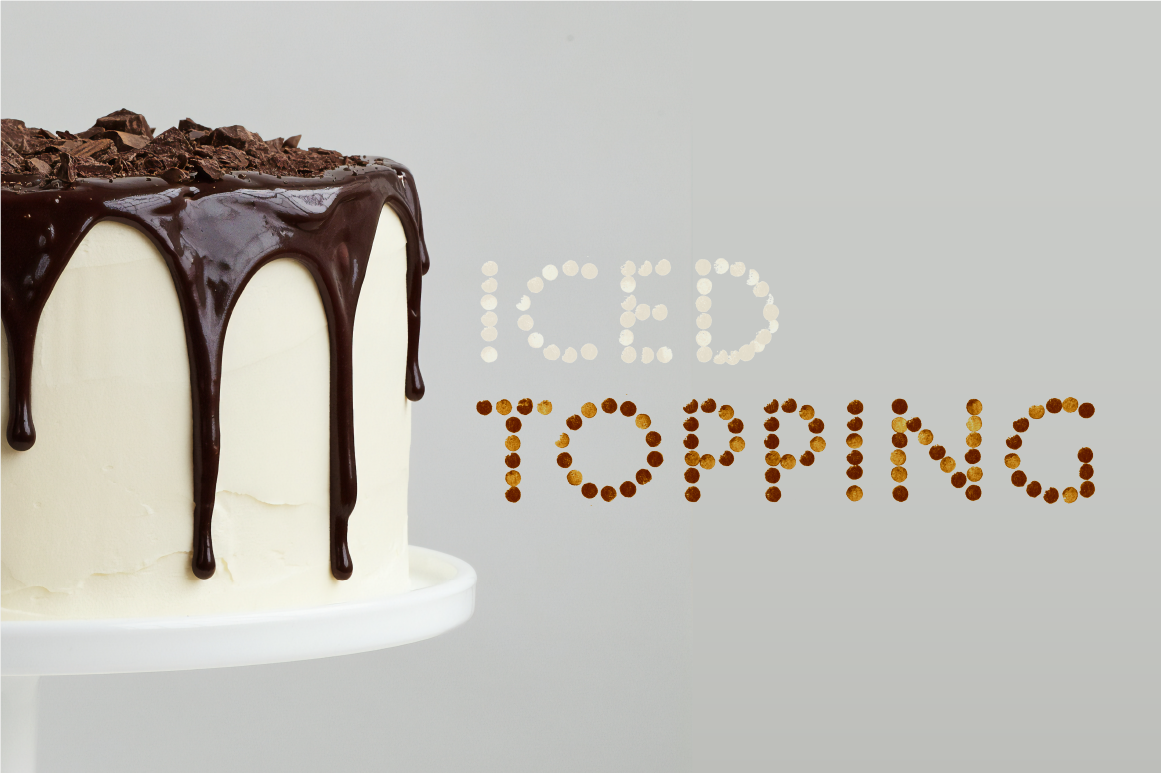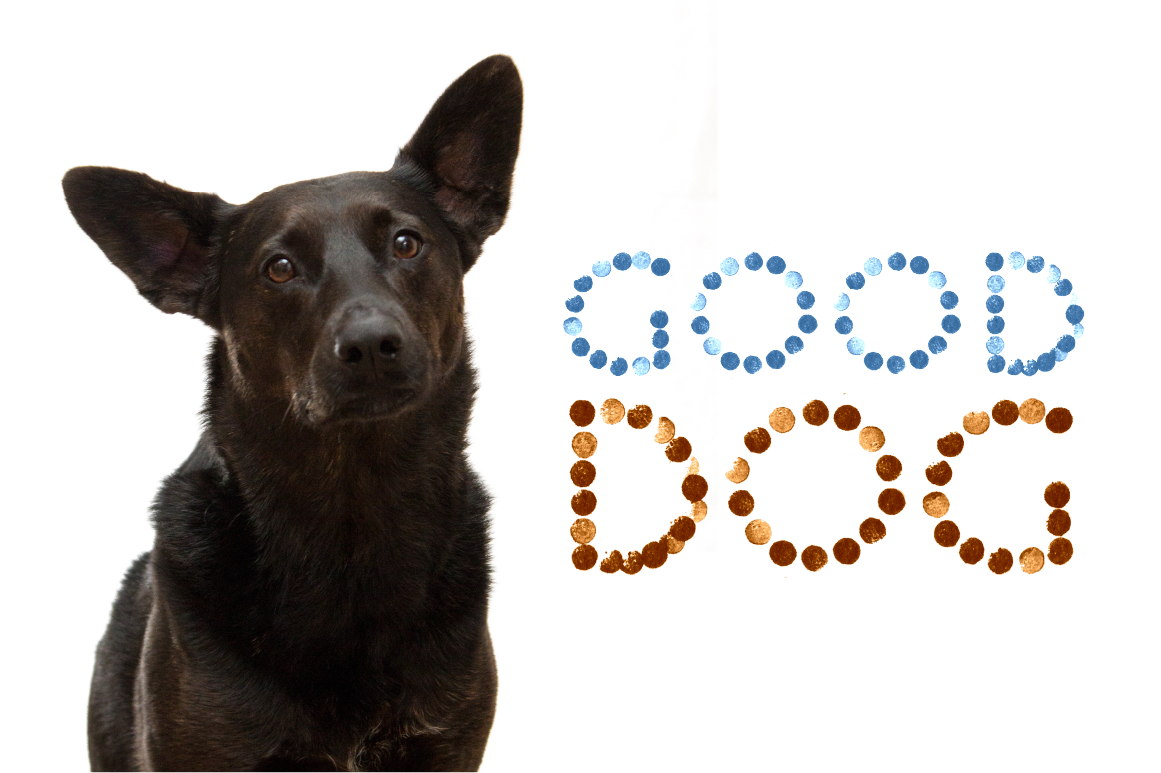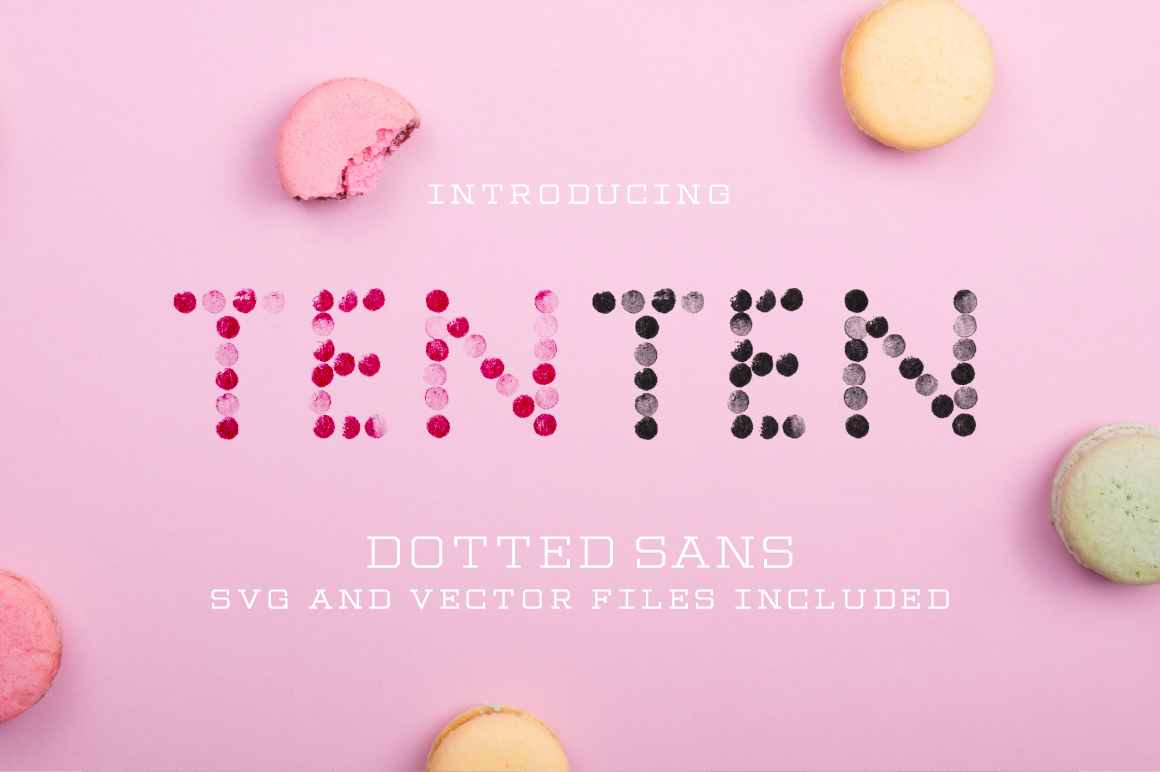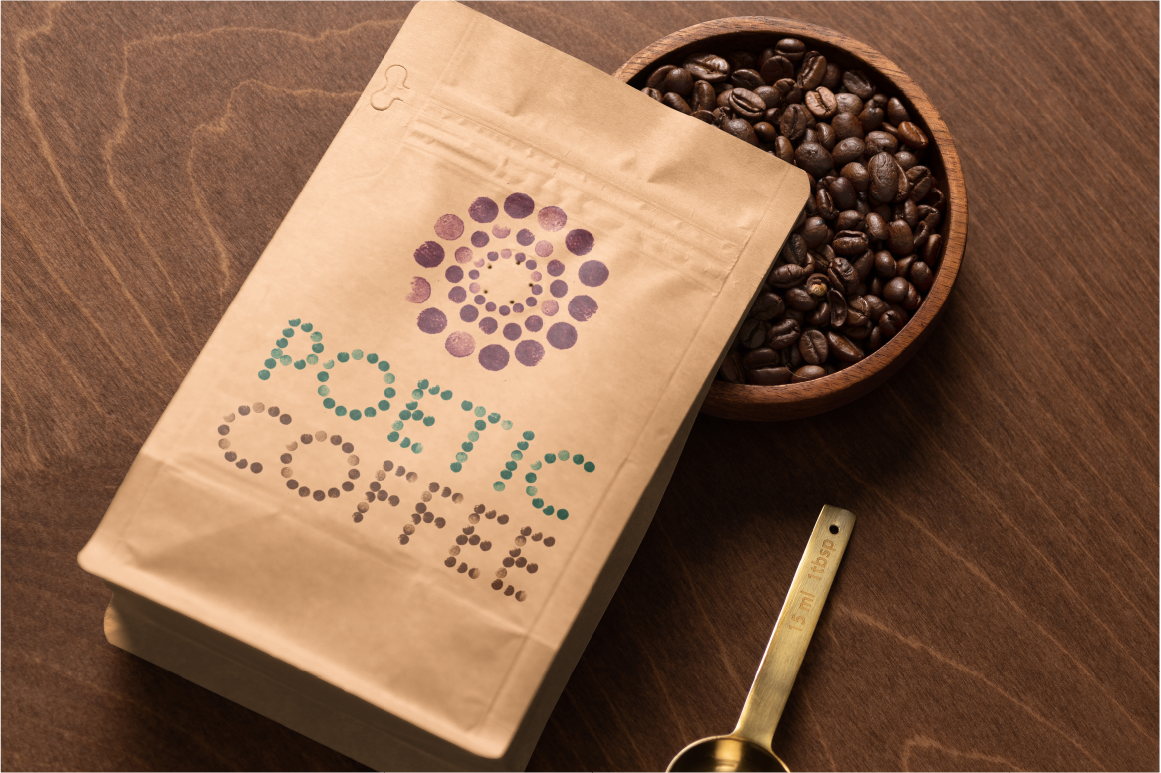
“Ten-ten,” which means “dots” in Japanese, originated as a title font for a magazine project. I used an ink pad and a pencil eraser to create this fun, warm, versatile font.